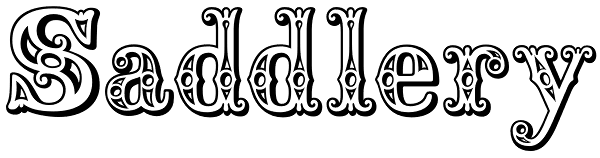
Saddlery
Saddlery includes the first font that you can use alone or add the optional second fill font behind the first using different colors for a more decorative look. You will need an application that works in layers in order to use the fill fonts that...
Saddlery Fill
Saddlery
Saddlery Post Fill
Saddlery Post